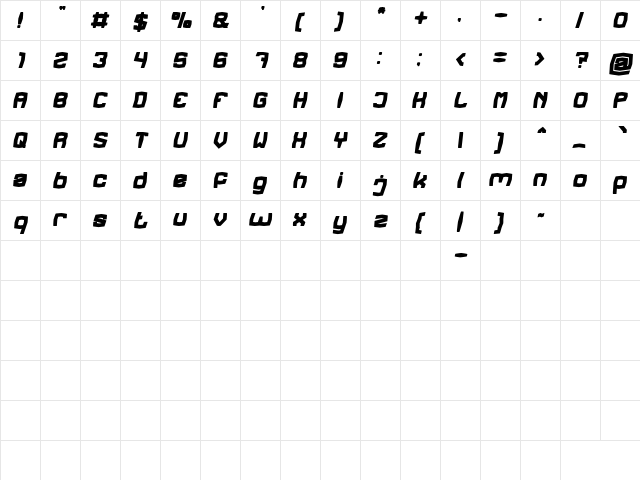
REGGAE BASS Bold Italic
Design Context for REGGAE BASS Typeface
REGGAE BASS takes a measured approach to typography — its balanced proportions and neutral character make it a reliable workhorse for both digital and print work. The slanted form adds forward momentum and visual energy. The heavy weight commands attention and anchors typographic hierarchies.
Pro Tip: Use REGGAE BASS for emphasis, pull quotes, and subheadings where its slanted energy can add rhythm to the layout.